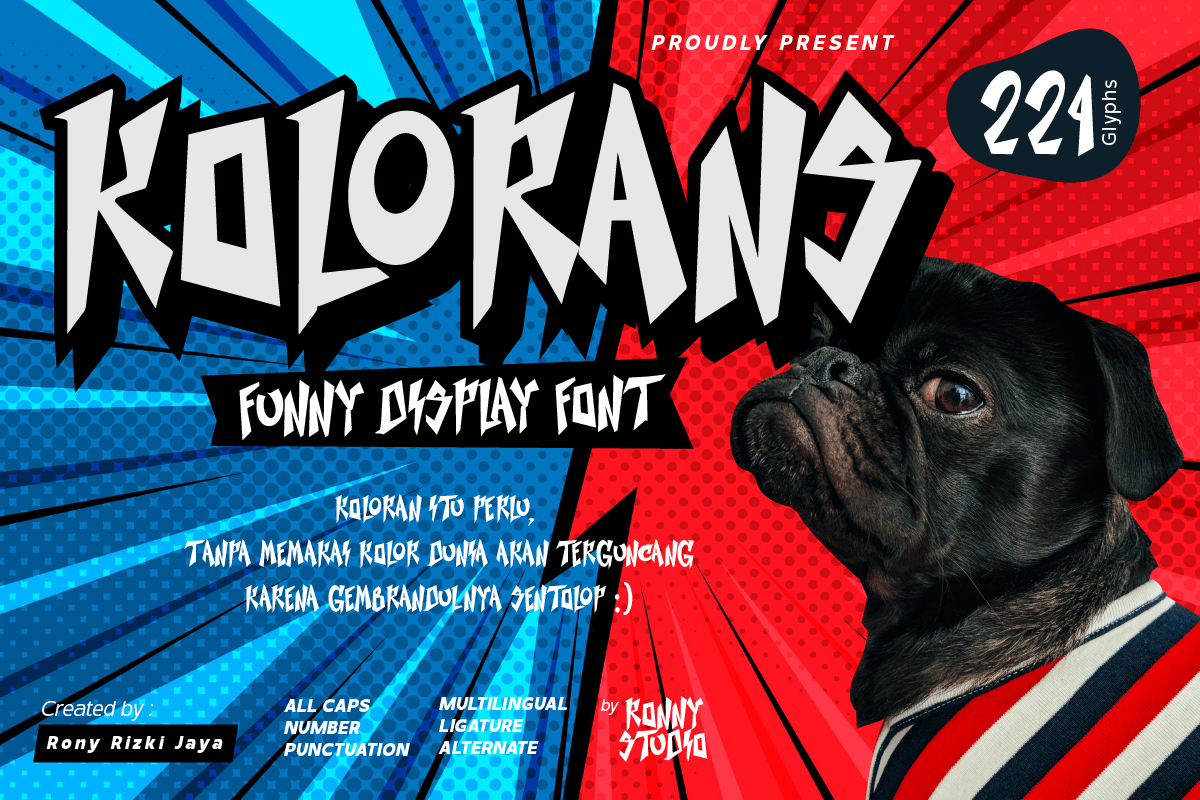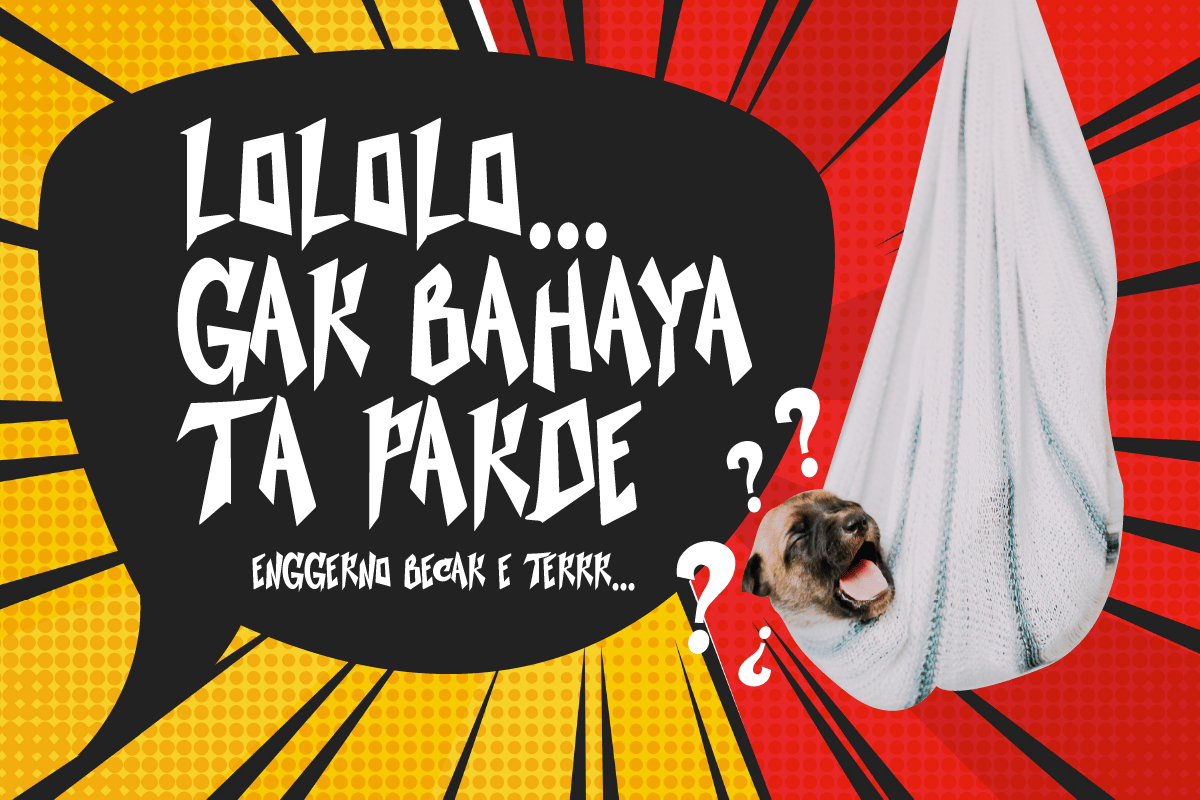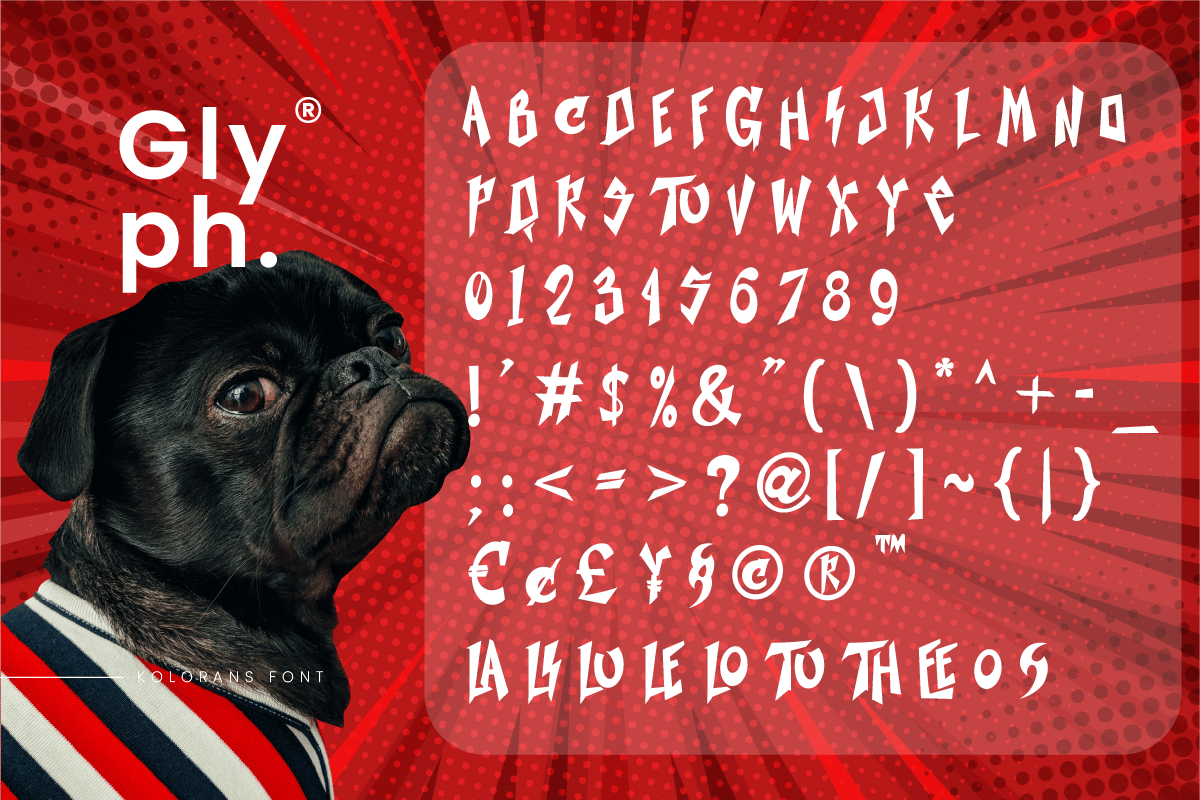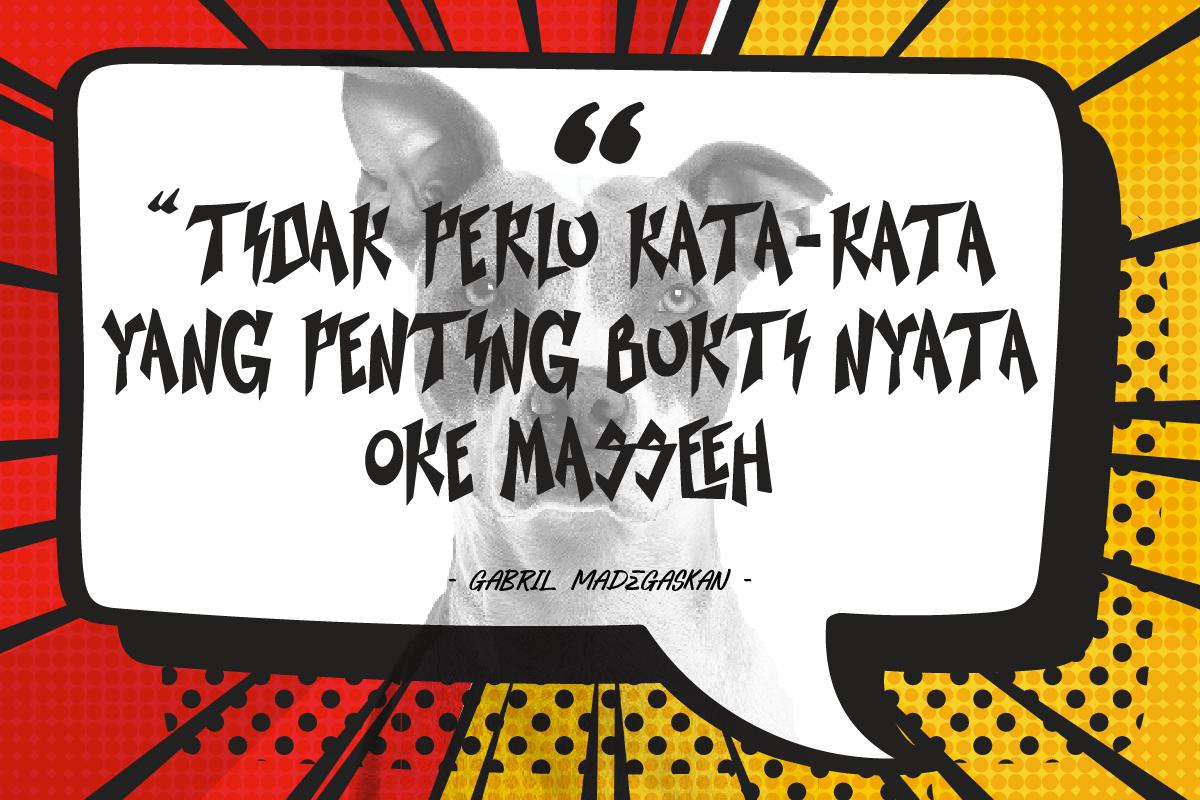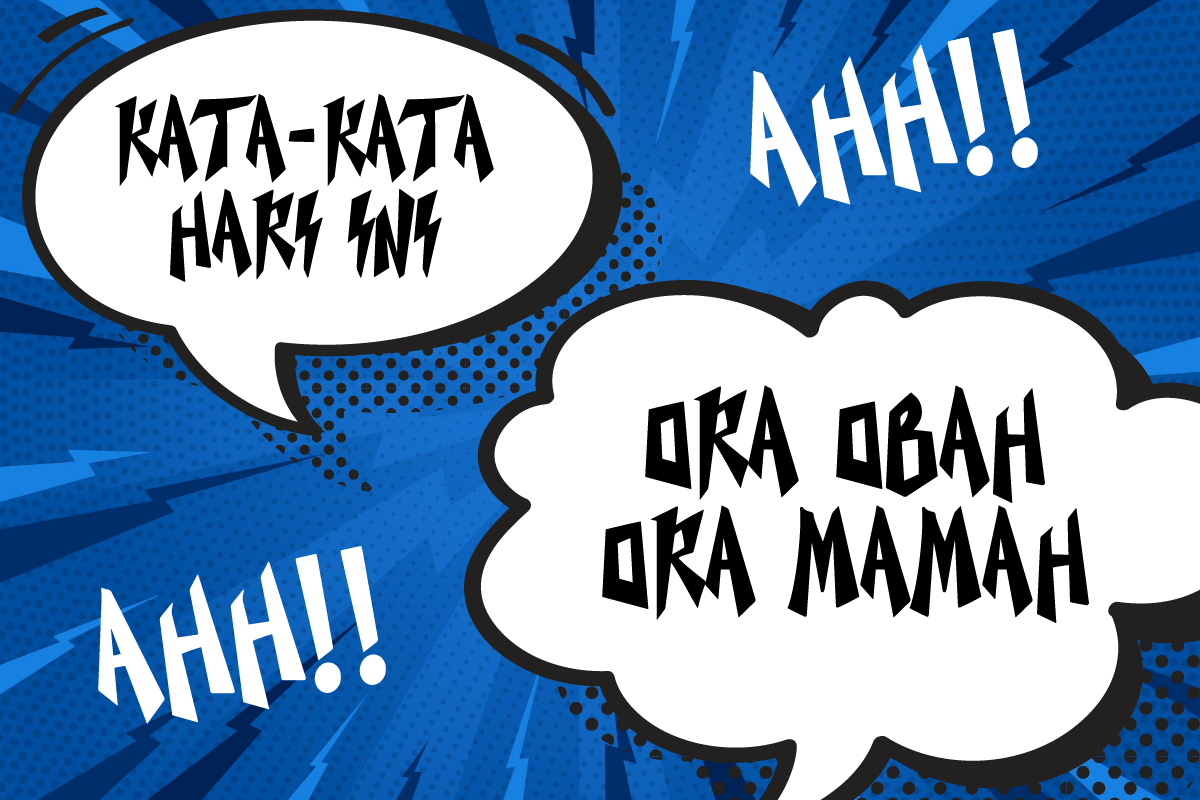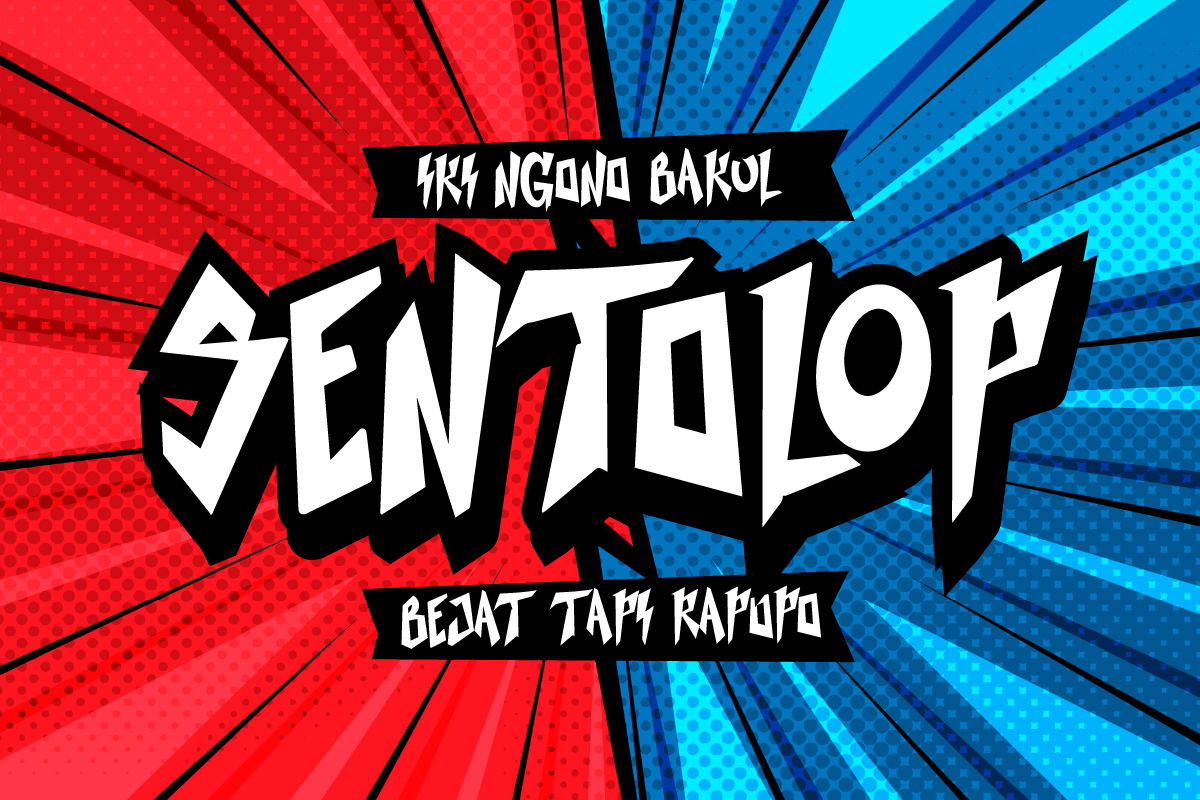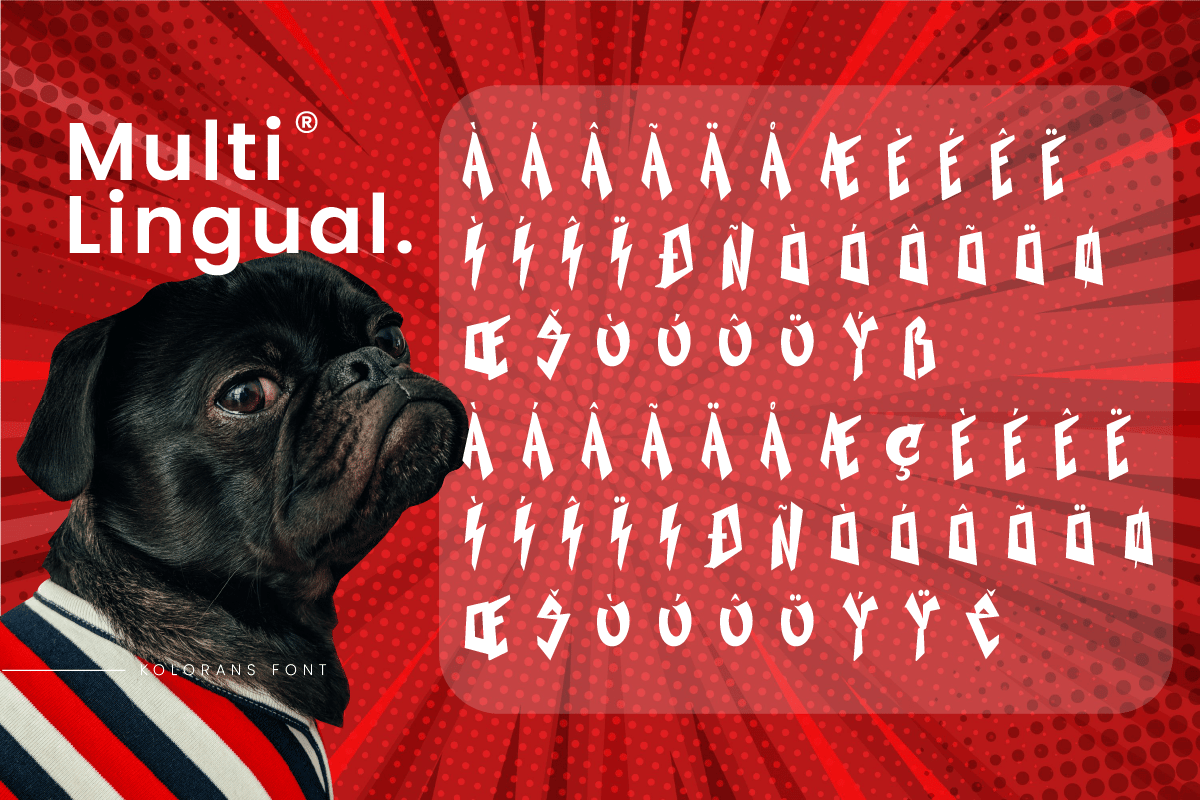
Kolorans – Funny Display Font
Kolorans is a cute comic display font. Funny comic fonts are characterized by their whimsical and playful designs, which are meant to evoke a sense of lightness and humor. It features bold, slightly exaggerated letterforms that have a cartoonish feel to them. The letters are cute and quirky, giving off a friendly and approachable look. This font is perfect for comic books, titles, poster designs, and more.
- All Caps
- Alternate & Ligature
- numbers & punctuation